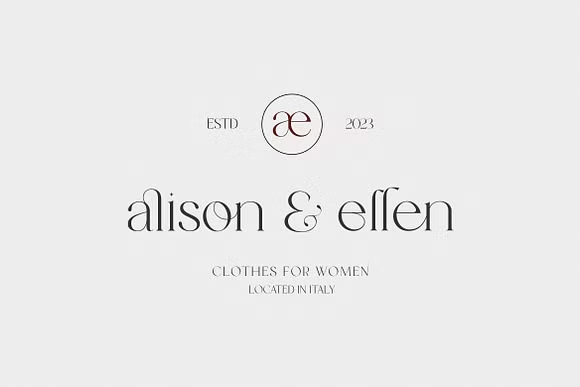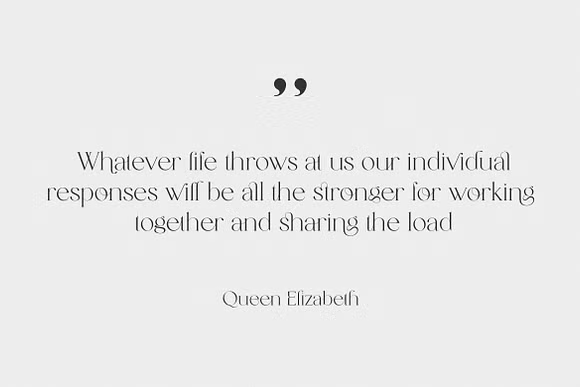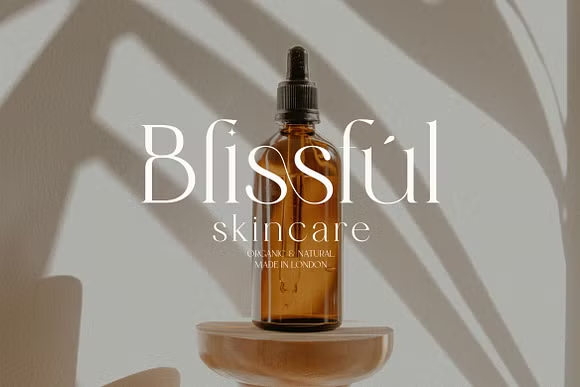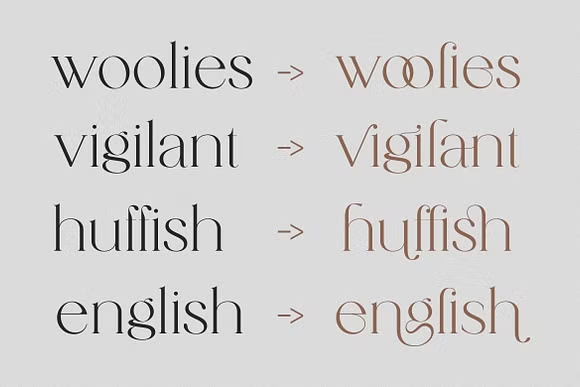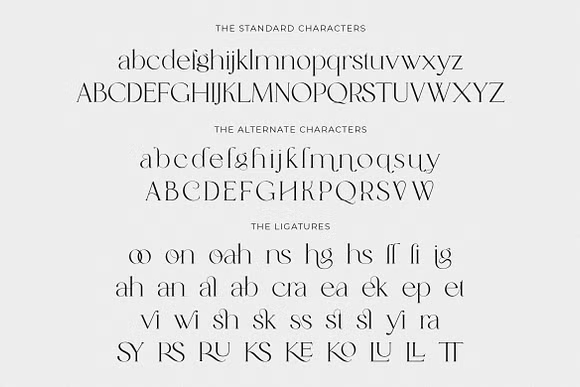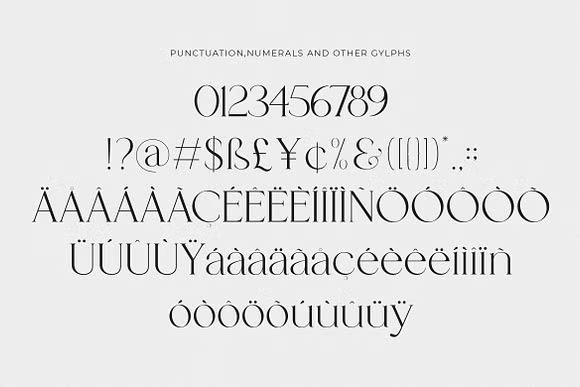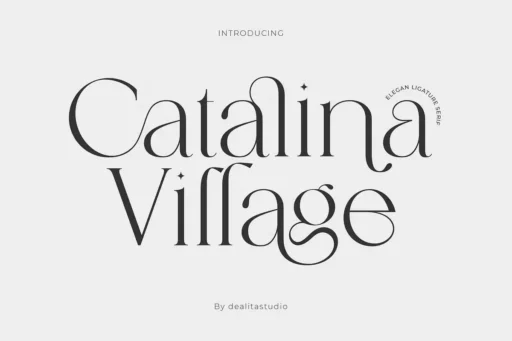
Catalina Village Font
Catalina Village is a cute and classy modern serif with clear contrast, which will add some class to your work. Designed to suit fashion-related projects, it is perfect…
Catalina Village is a cute and classy modern serif with clear contrast, which will add some class to your work. Designed to suit fashion-related projects, it is perfect for producing sophisticated and fashionable designs such as logos, headings, magazines, and other materials. This gives it a style that is ideal for lifestyle and luxury logos, guaranteeing that your work will be elegant and fashionable.
Where Catalina Village Font works best
Catalina Village Font gives long-form text a classic, trustworthy rhythm — ideal for magazine spreads, annual reports and book interiors.
Pair Catalina Village Font with generous letter-spacing for wordmarks in fashion, hospitality, wine and jewellery branding.
What is Catalina Village Font good for?
Catalina Village Font is a Serif Fonts typeface tagged Branding, Editorial, Elegant, Modern. It works well for headlines, logos, posters, social media graphics and branding projects that need a distinctive serif fonts look.